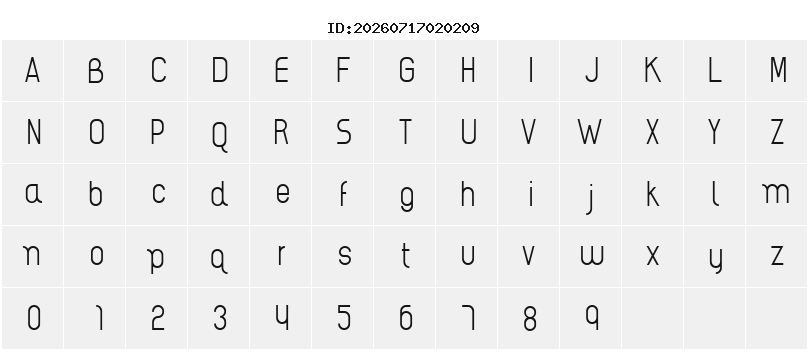
AI kelso Preview
• Font Name: AI kelso
• Font Style: L
• Font ID: Fontographer 4.7 AI kelso L
• Full Font Name: AI kelso L
• Version: Fontographer 4.7 9/16/07 FG4M­0000002045
• PostScript Name: AIkelsoL
• Character Count: 134
• Copyright: Copyright (c) 2005,2006 RITCHTYPE. All Rights Reserved.AI kelso is a registered trademark of RITCHTYPE typefoundry. Designed by Ritchie Ned Hansel,2005.
About AI kelso.ttf
AI kelso.ttf is a modern, elegant sans-serif font designed for ultimate readability and visual harmony. Perfect for branding, headlines, web design, and print materials.